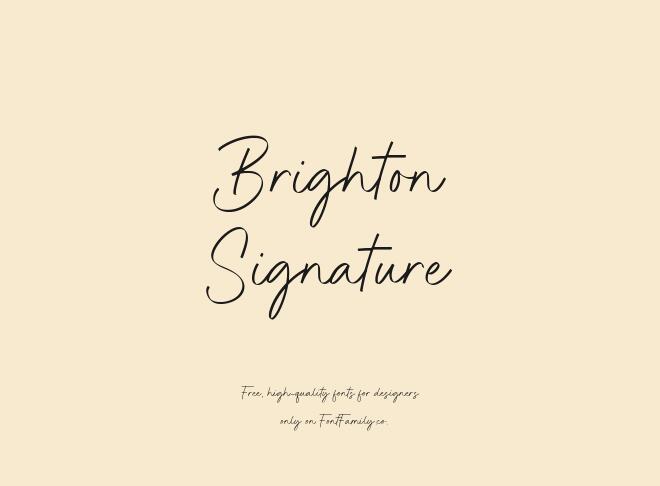
Brighton Signature Font
Brighton Signature Font, designed by Brighton Type Foundry, is a modern, elegant, and handwritten style font that exudes a sense of sophistication and class. This font is characterized by its unique letter formations, providing a personal touch to any design. It is perfect for branding, wedding invitations, business cards, and any project that requires a stylish handwritten feel. Its modern elegance sets it apart from other fonts, making it a great choice for designers looking to add a unique touch to their work. The fluidity of Brighton Signature Font makes it very versatile, ideal for both print and digital designs. Its free personal use license makes it even more appealing for individual designers and small businesses.